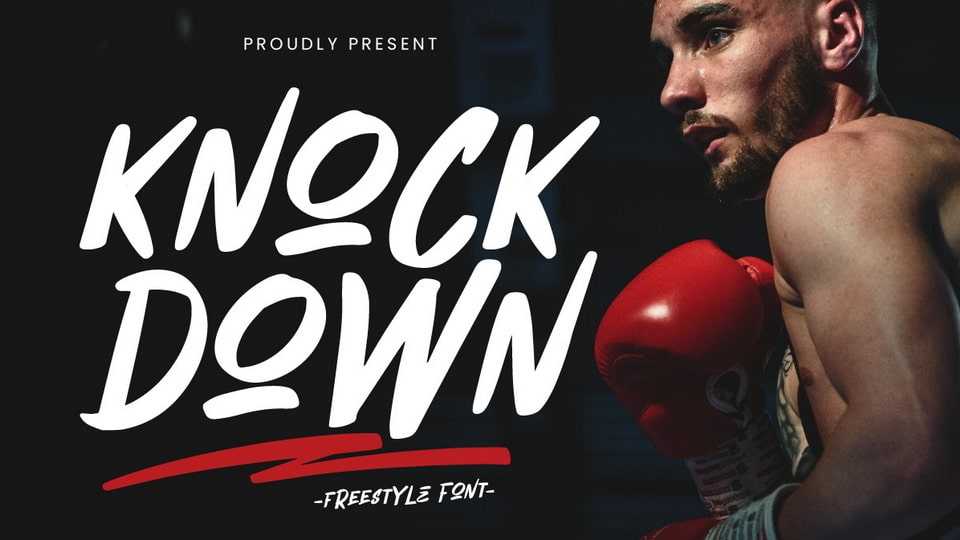
Download Knock Down font, an emotional and fun handwritten freestyle typeface. Knock Down font is absolutely perfect for quotes, products, logos, t-shirts, packaging, comics, magazines, posters, events, social media posts, books and more!